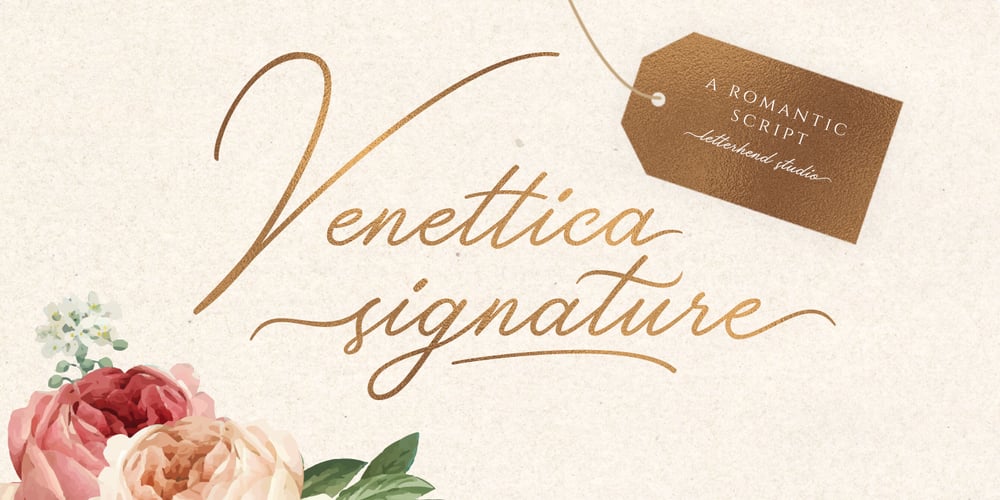
Venettica Script Font Family was designed by Hendry Juanda and published by Letterhend. Venettica Script contains 1 styles and family package options. Please meet Venettica Signature, a romantic script typeface. As you can see, this typeface has elegant look with natural feel. The swashes make the font looks even more unique. You can play around and mix and match the swashes, combining into a great signature! They works perfect for you who needs a typeface for headline, logotype, apparel, invitation, branding, packaging, advertising etc. This typeface is comes in uppercase, lowercase, punctuation, symbols, numerals, stylistic set alternate, ligatures, etc also support multilingual.